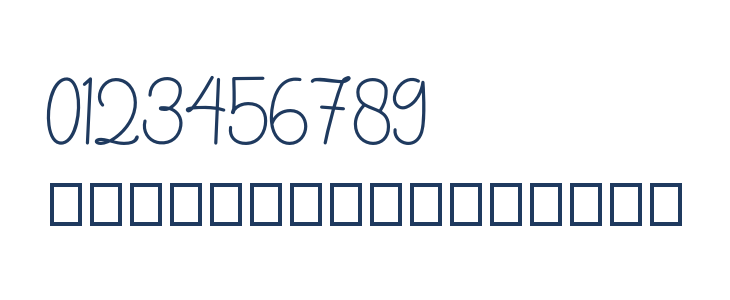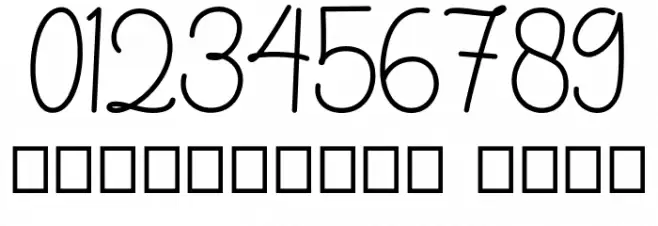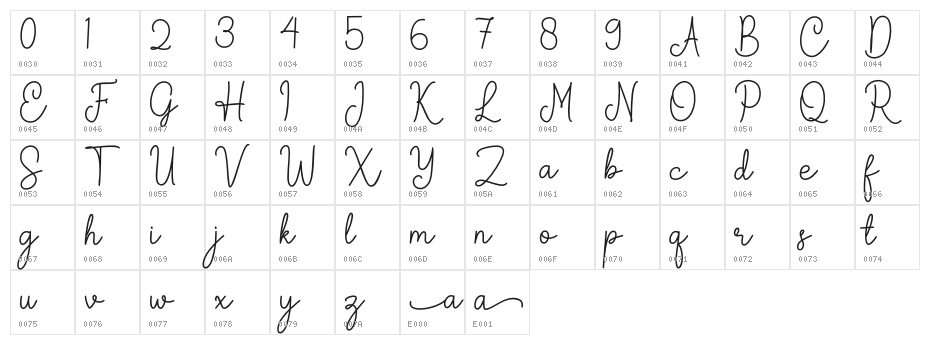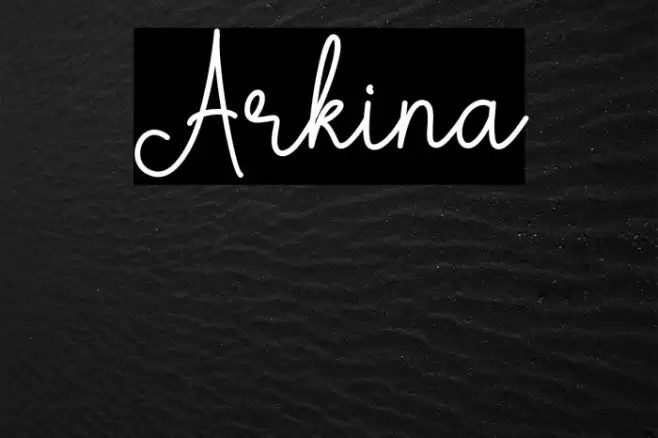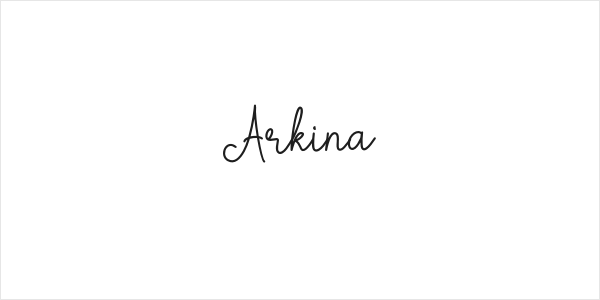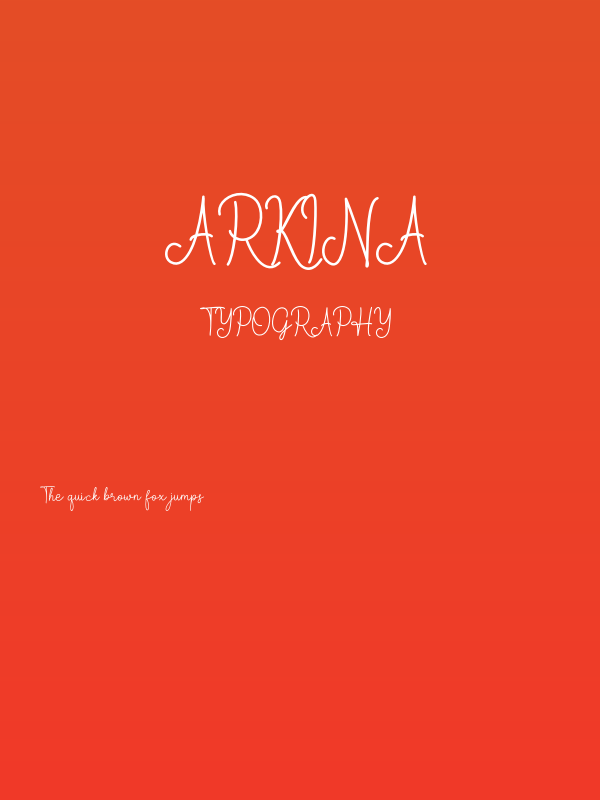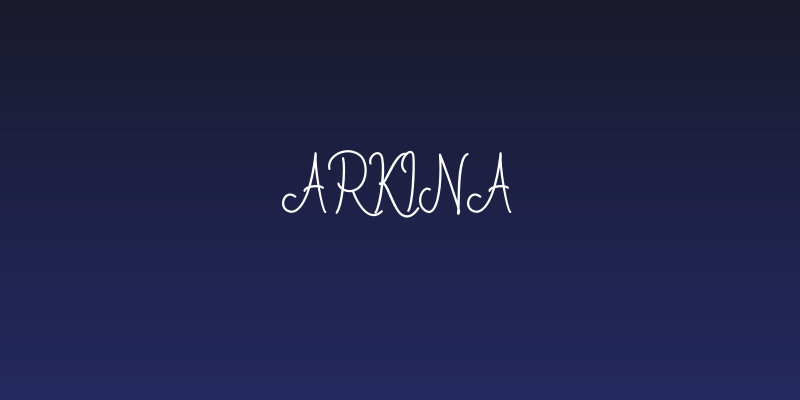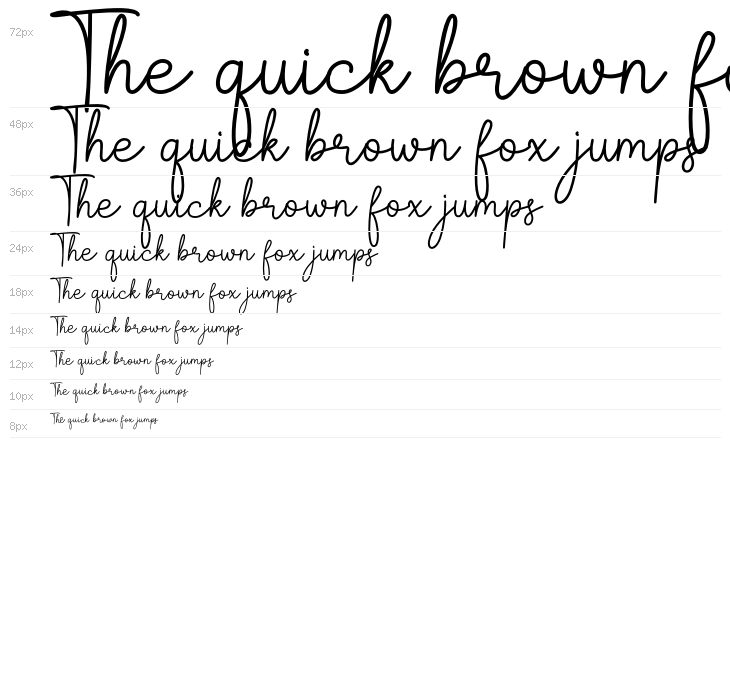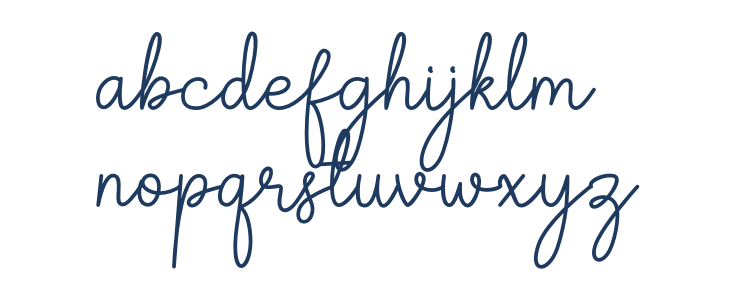
Arkina Font
Arkina Description
This font exhibits a playful and elegant script style, characterized by its smooth, flowing lines and a handwritten appearance. The uppercase letters are tall and slender, with a slight slant that adds a dynamic feel. The lowercase letters are more rounded and connected, enhancing the script's fluidity. The numerals are consistent with the overall style, maintaining the same playful curves. The special characters are designed to complement the alphabet, ensuring a cohesive look across all text elements. This font is versatile, suitable for both formal and informal contexts, and can add a personal touch to any design.
| Overall Style | Elegant, Playful |
| Proposed Projects | Ideal for wedding invitations, greeting cards, personal branding, and creative projects that require a personal touch. |